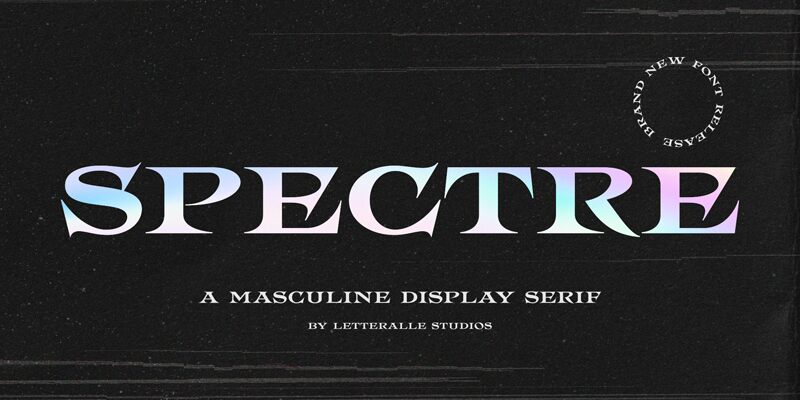
Spectre-Regular
Spectre font by Letteralle Studios is a retro, bold display font with chic and sophisticated characteristics. Many would see its aesthetic as dramatic flair or even slightly artistic. The design of the typeface is in big part inspired by classic influences from previous popular fonts. Another feature of this expanded modern-type font is its elegant look that leaves no stone unturned when it comes to sleekness.
When we consider all the visual features of Spectre, it becomes apparent what type of projects could benefit from creative uses of this typography. The list contains logos, signage, storefronts, greeting cards, T-shirts, and book covers but may also include packages and labels. Prepare also your invitations and party merchandise alongside social media graphics for a mesmerizing reaction from the public!